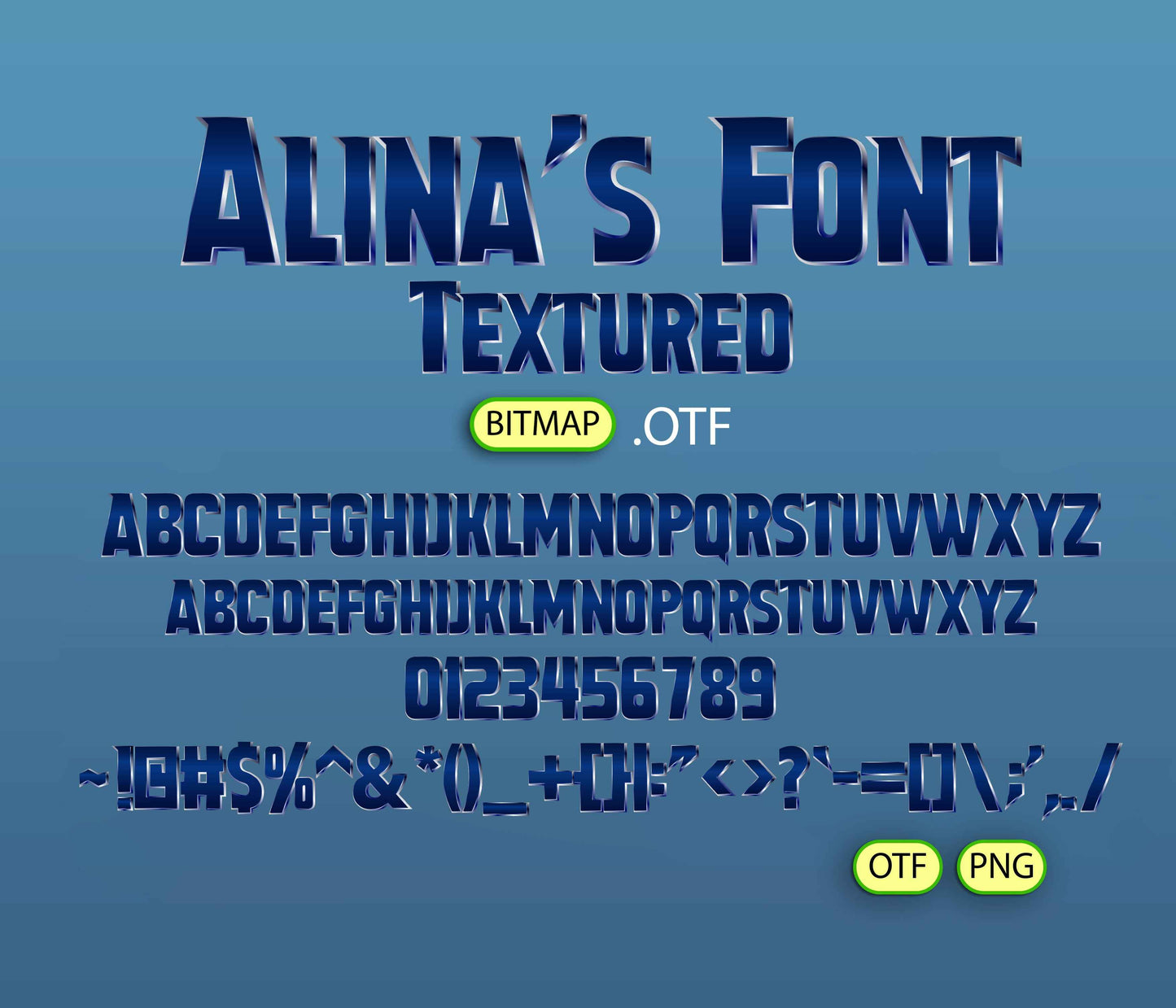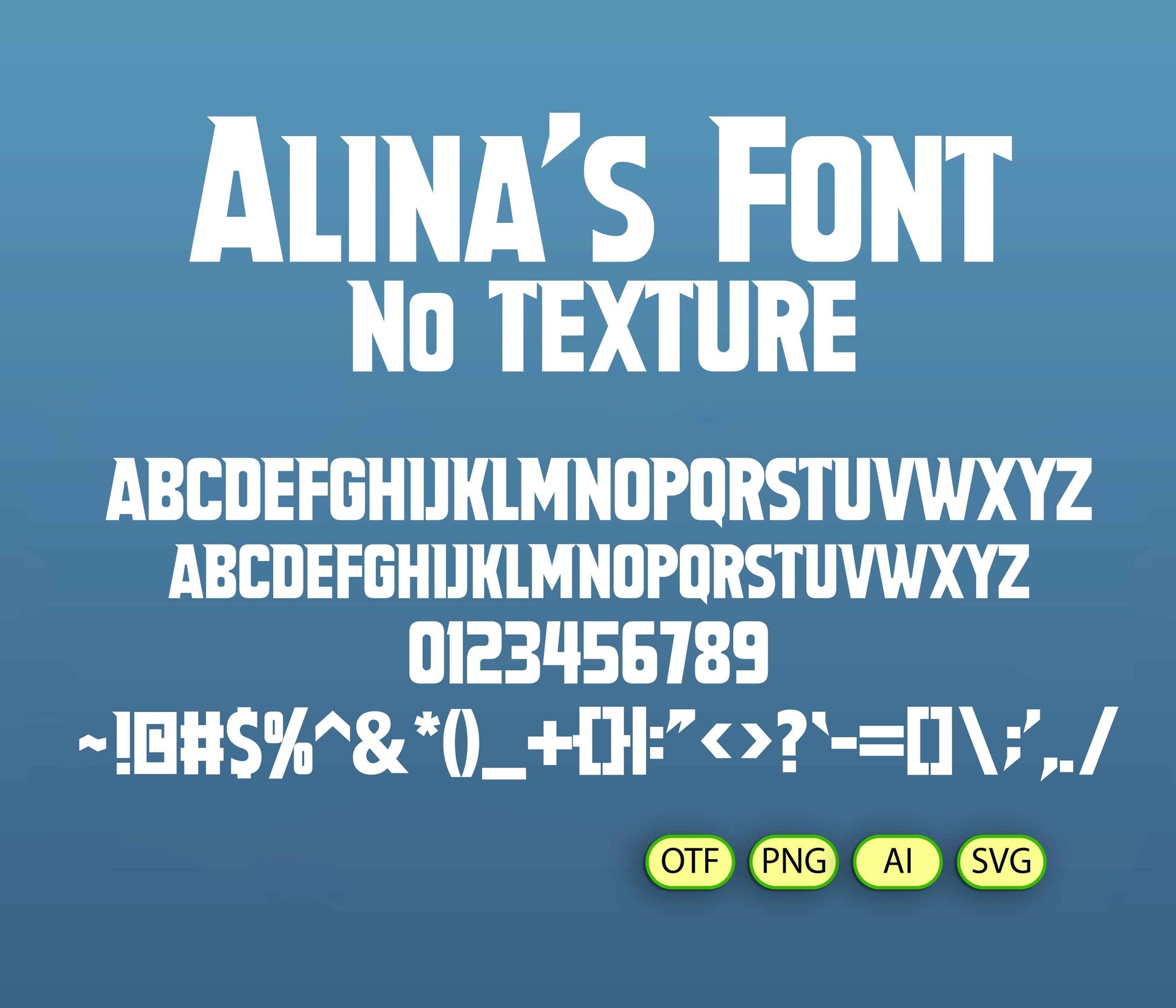
Epic Heroes Font Textured
Unleash the Power with the Epic Heroes-Inspired Font
Embark on an unprecedented journey with our Epic Heroes: Quantum Adventure font, inspired by the thrilling new chapter in the superhero saga. This font captures the essence of an epic showdown between two beloved heroes, set against the backdrop of the mysterious and infinite quantum realm. With its unique blend of action, adventure, and the unexplored, this typeface embodies the dynamic tension and groundbreaking exploration that the Epic Heroes series promises to deliver, offering fans a way to dive into the adventure with every word they craft.
Our Epic Heroes-inspired font features sharp, dynamic lines and bold, impactful characters that reflect the high-energy and powerful nature of the series. This versatile font is ideal for a variety of applications:
- FREE No-Texture Version: Offers a sleek, adaptable variant perfect for various design needs, ensuring compatibility with both digital and print media.
- Comprehensive Character Set: Equipped with an extensive array of characters to support creative projects, from straightforward text to elaborate designs requiring special symbols.